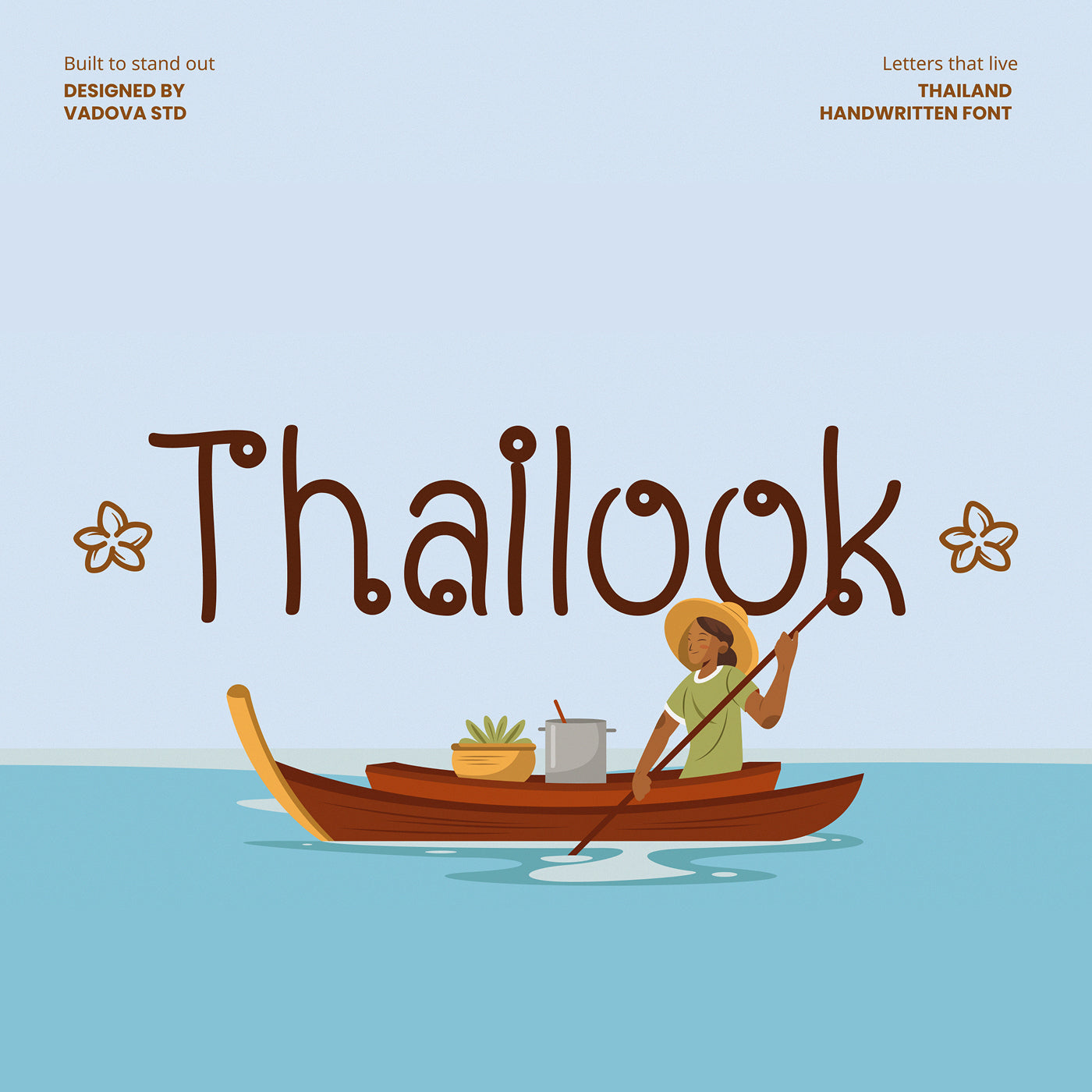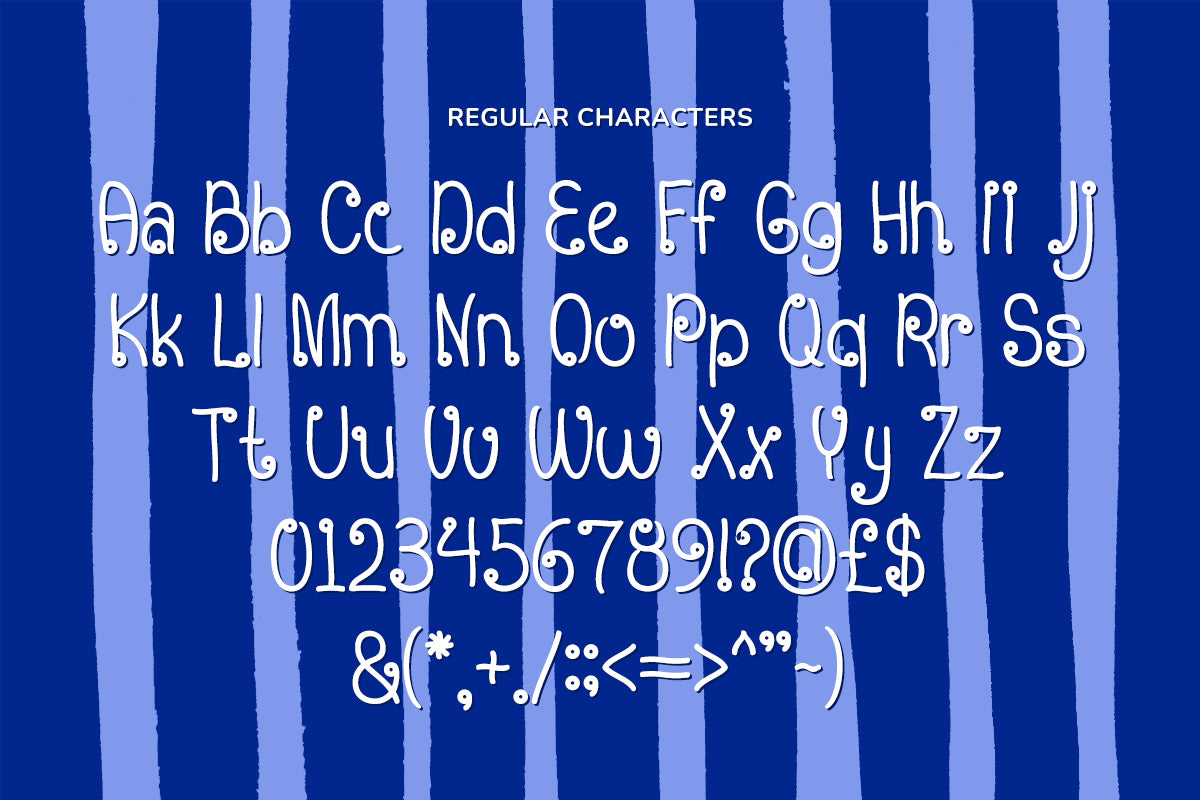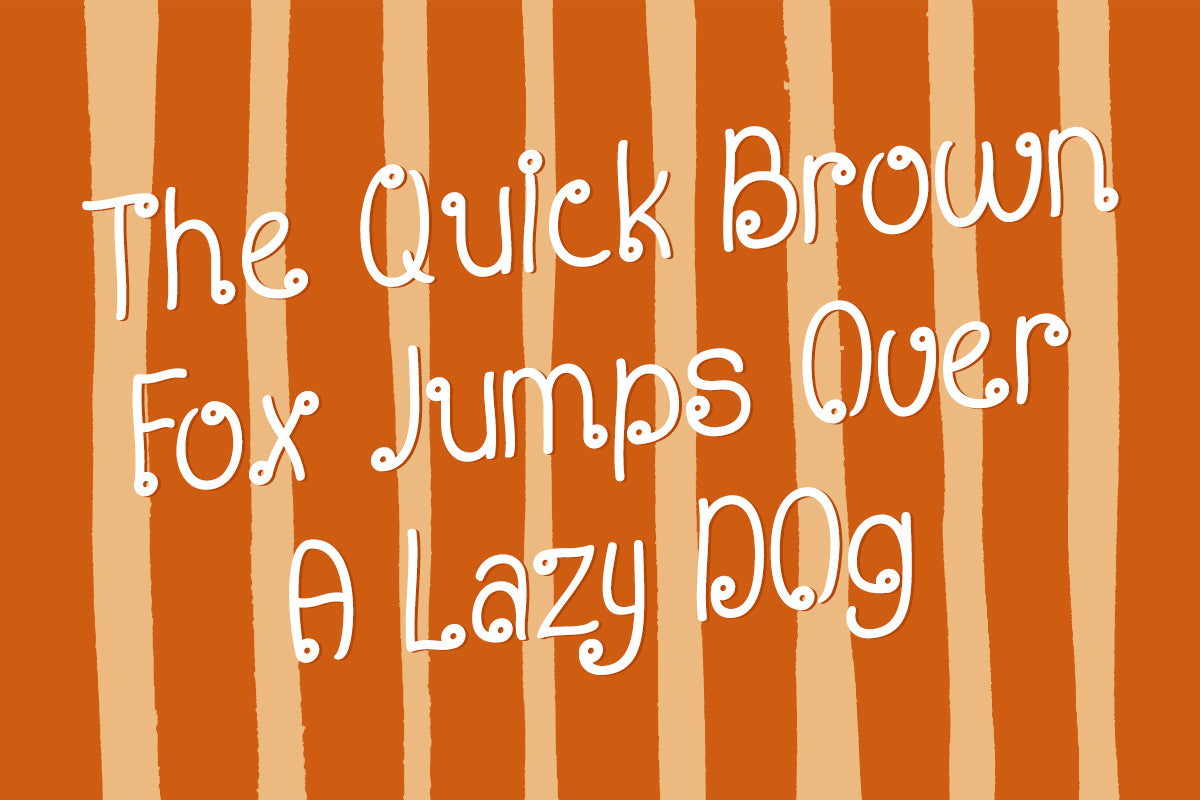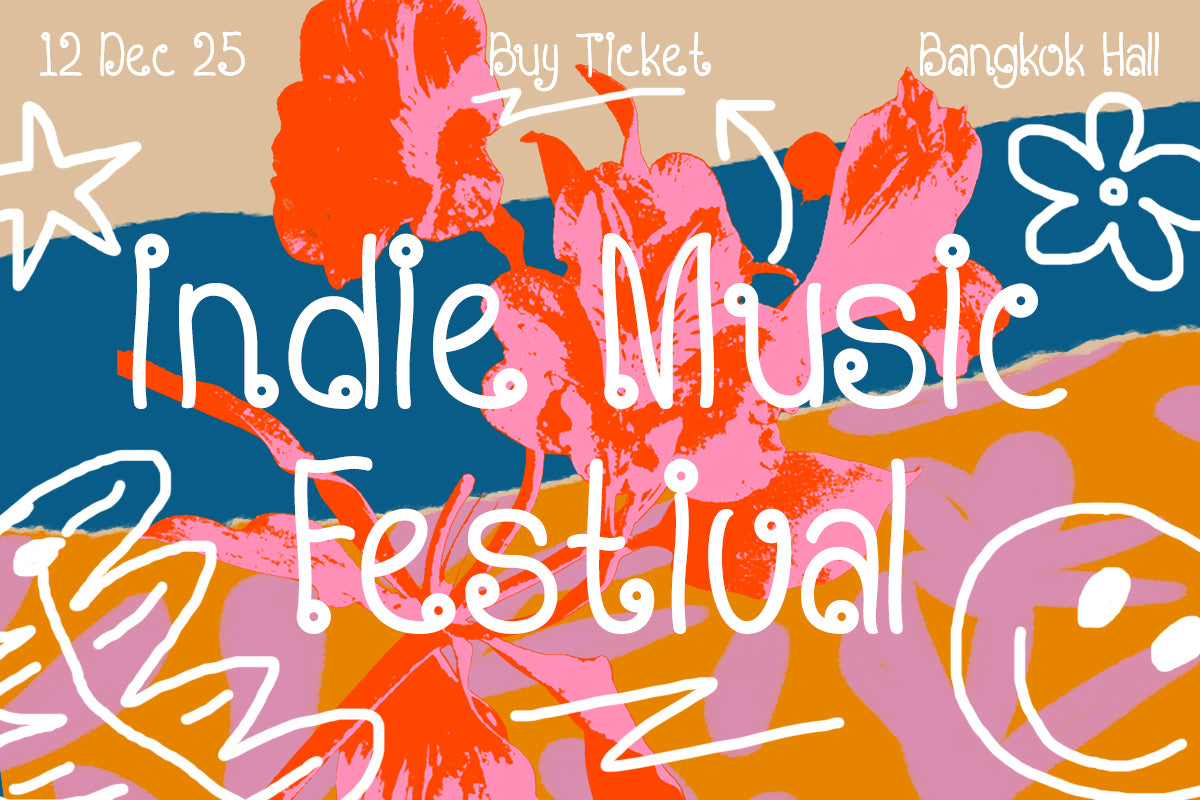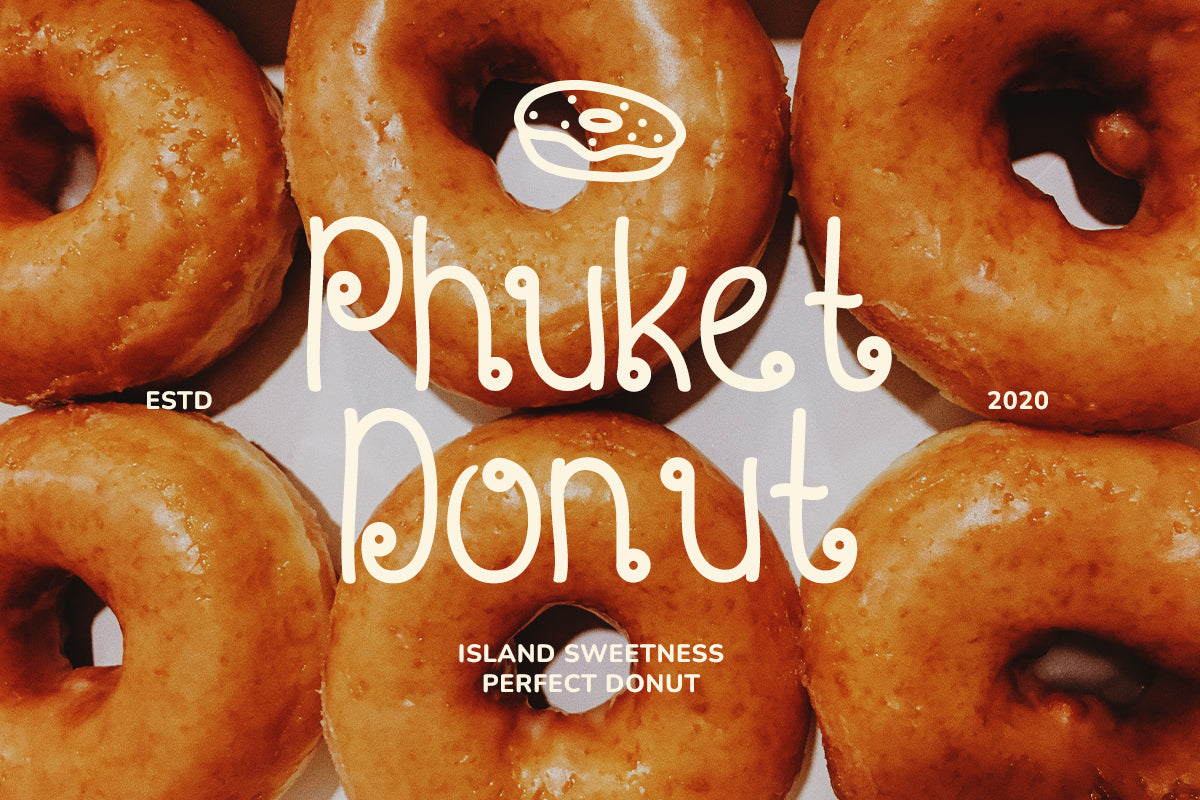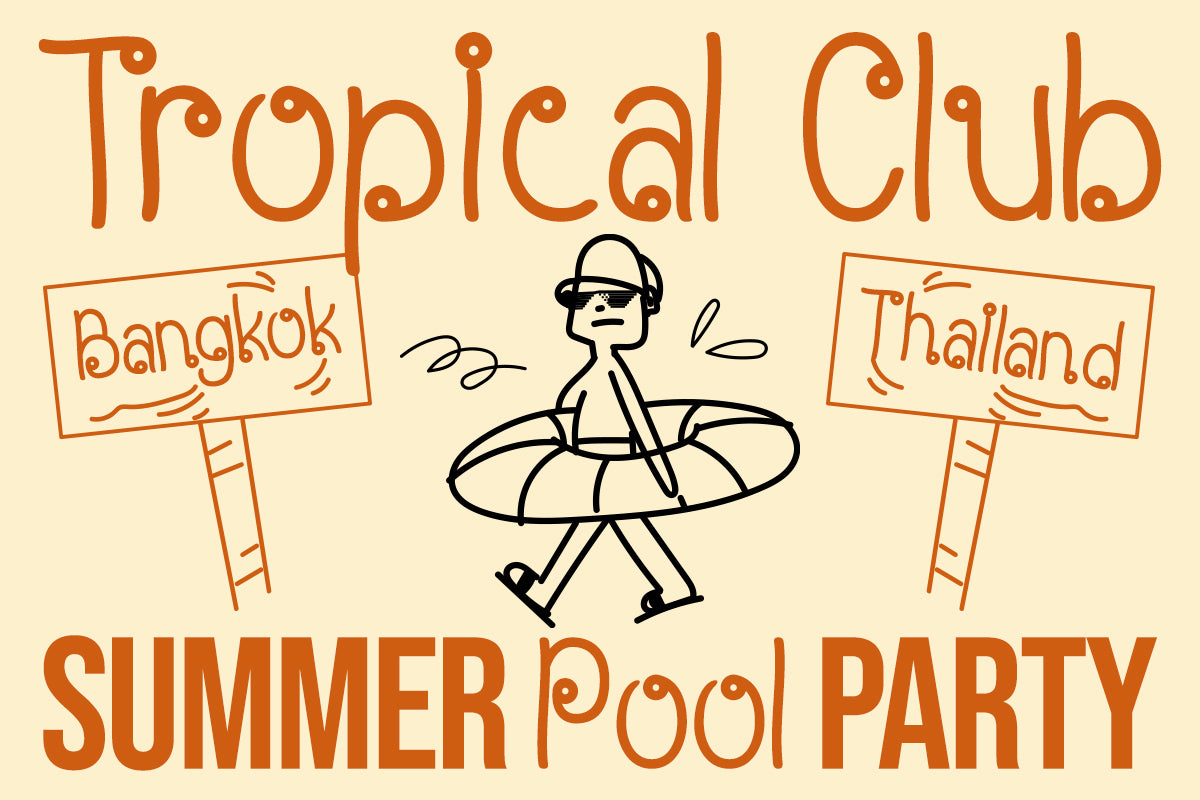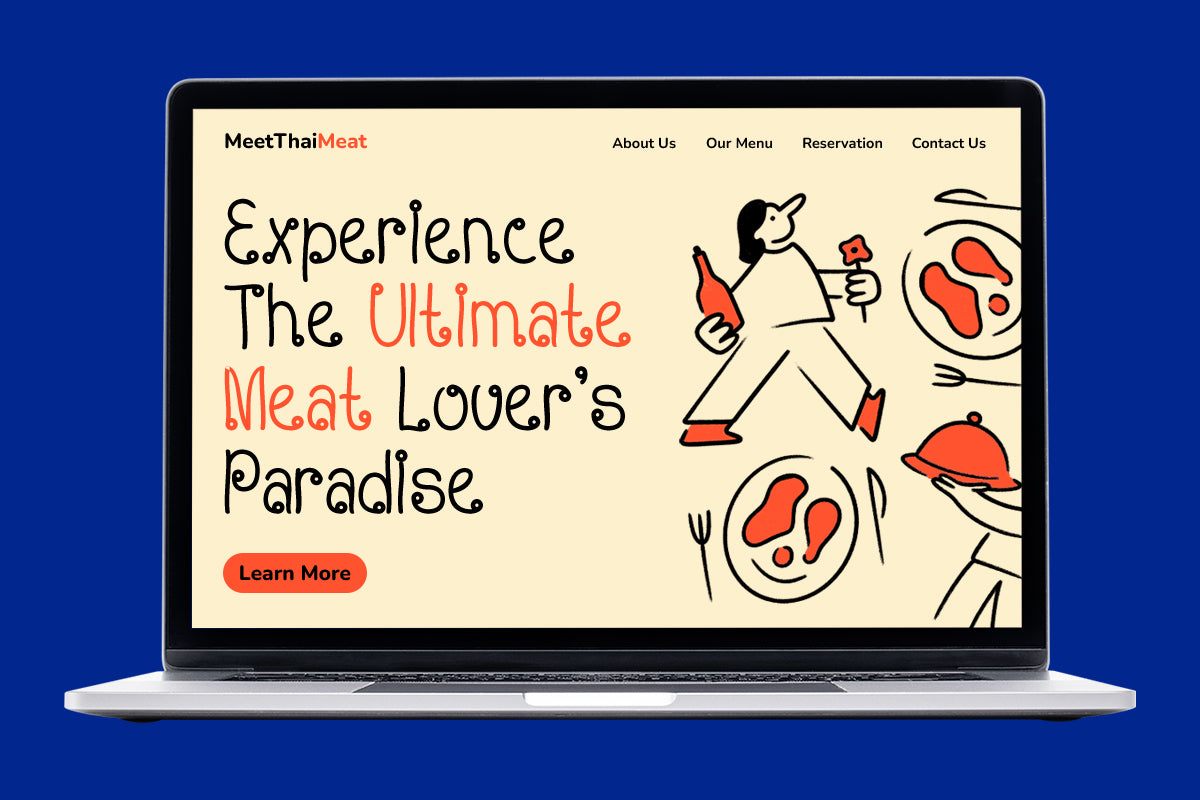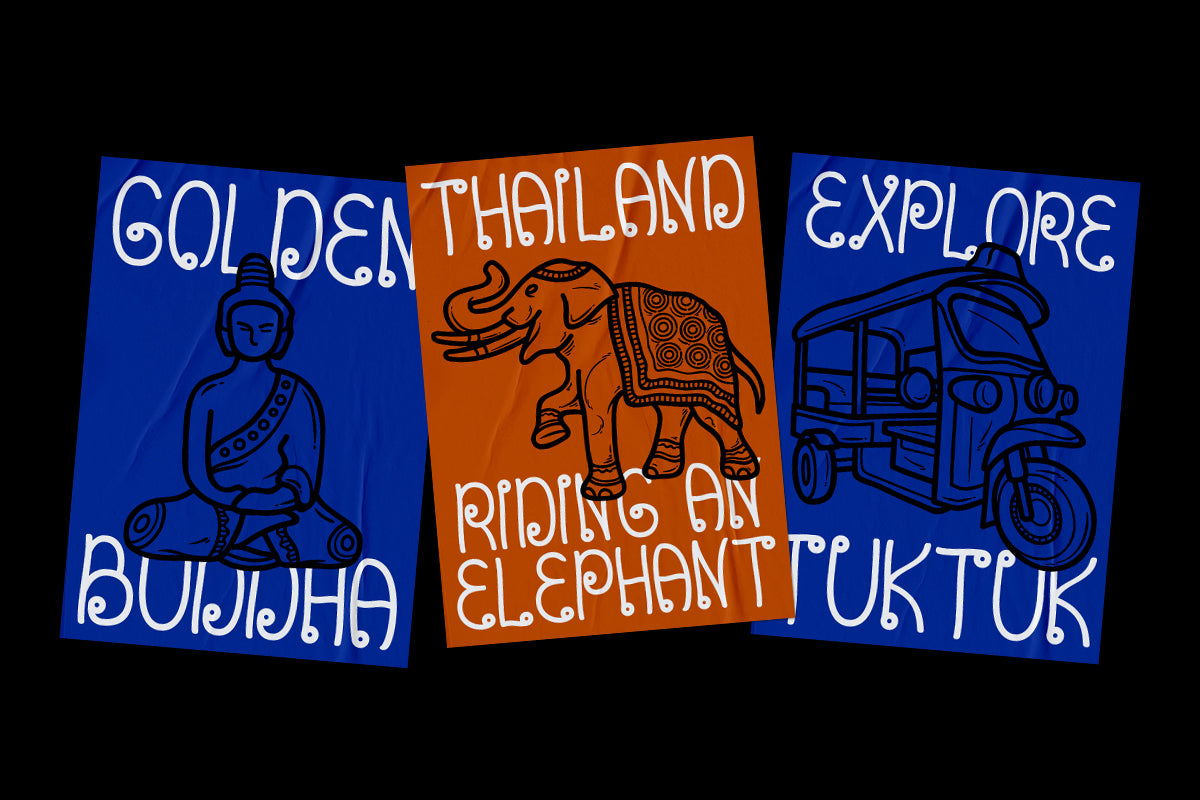
Thailook Thailand Handwritten Font
Thailook is a playful and expressive display typeface inspired by casual handwriting and vibrant festival aesthetics. Featuring quirky curves, rounded strokes, and decorative details, this font includes uppercase, lowercase, numerals, punctuation, designed for energetic and artistic typography projects. Its handcrafted appearance creates a cheerful and youthful visual identity suitable for posters, music events, packaging, social media graphics, and creative branding. Delivered in high-quality scalable font formats for both print and digital applications.
Relevance & Use Cases is highly relevant for creative projects that require playful energy, handmade personality, and youthful expression. The font works effectively for indie music festivals, art posters, café branding, food packaging, social media campaigns, creative merchandise, children’s projects, doodle-themed graphics, event invitations, and lifestyle branding.
Thailook is a handwritten display typeface featuring uppercase and lowercase characters, numerals, and punctuation. It is available in TTF, OTF, and WOFF formats for print and digital use.